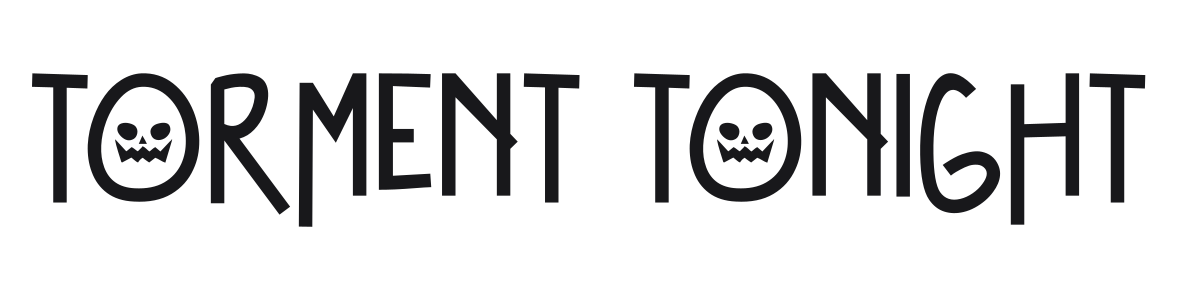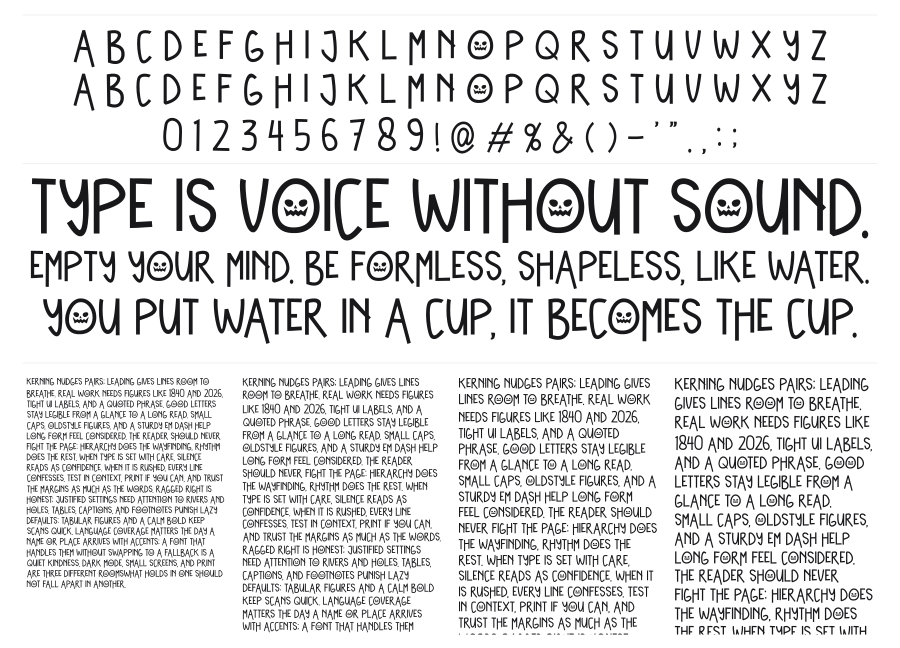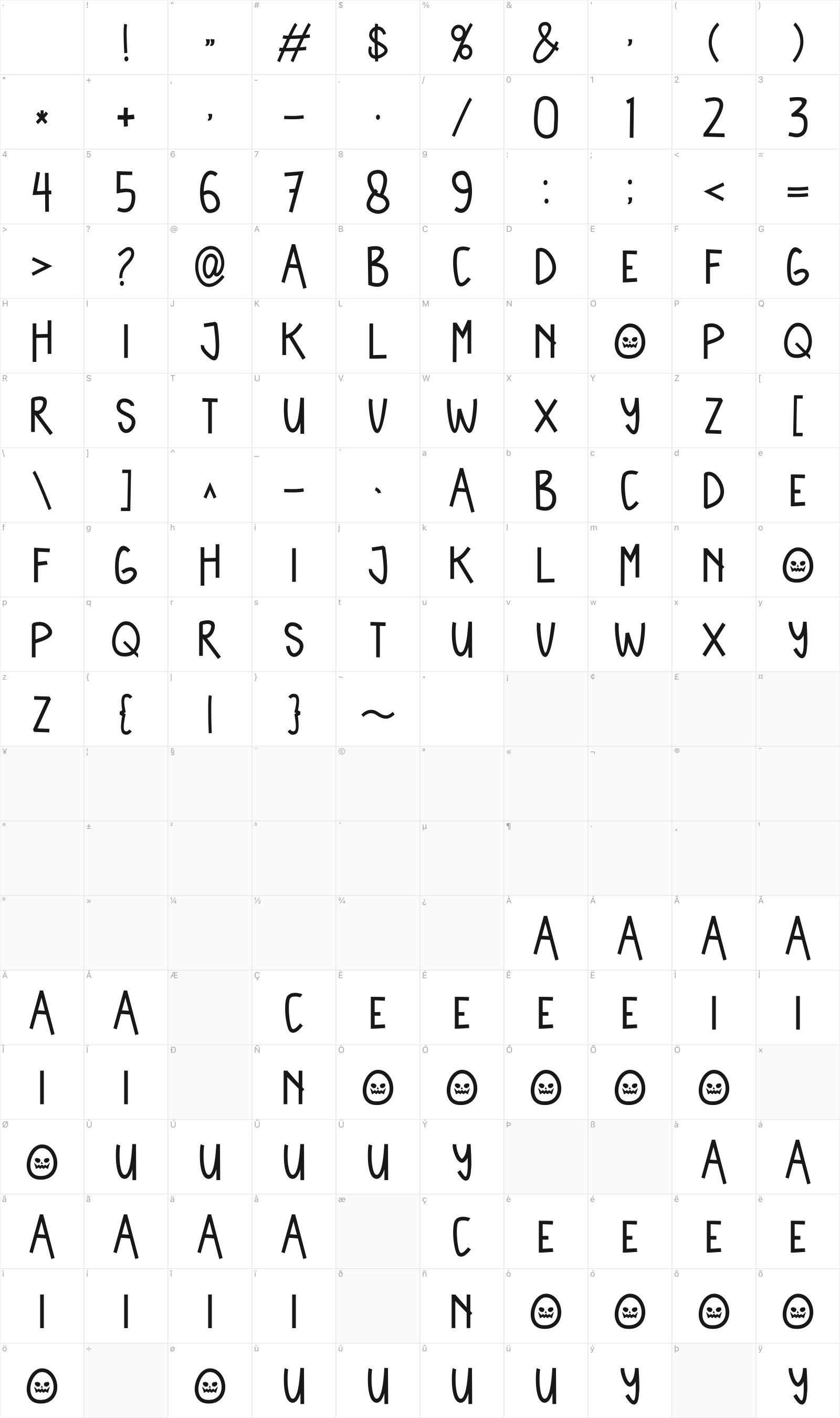
Torment Tonight
Torment Tonight is a bold novelty display font with tall, wobbly characters that straddle the line between spooky and playful. Each letter has a hand-crafted irregularity, with slightly uneven strokes and baseline shifts that keep the eye moving. It works across Halloween branding, kids' packaging, food labels, and anywhere a design needs personality without full horror.